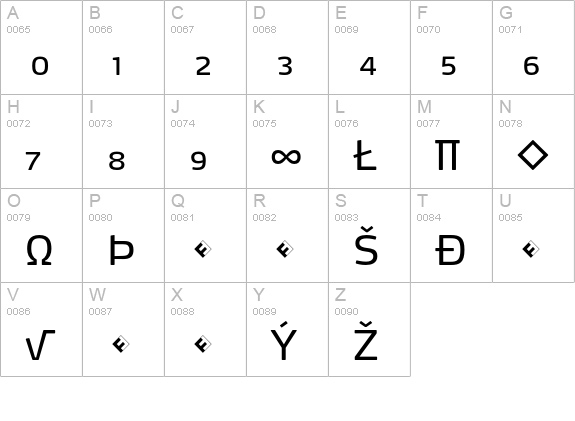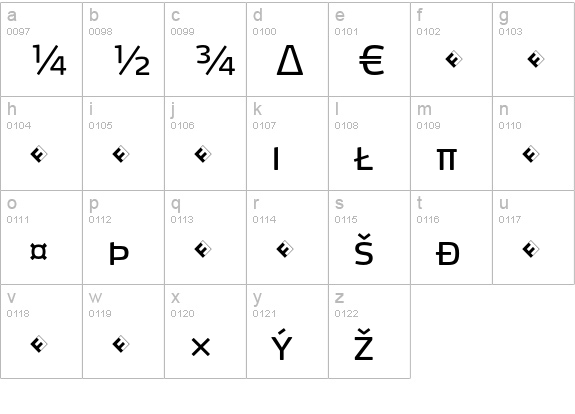
Max-RegularSCExpert Font Details
Introducing the stunning Max-RegularSCExpert font, a versatile typeface that exudes professionalism and modernity. This font boasts clean lines and sleek design elements, making it perfect for a wide range of projects, from branding to editorial design. With its balanced proportions and elegant appearance, Max-RegularSCExpert is sure to make your text stand out with sophistication and style. The best part? Max-RegularSCExpert is free to download at FontsMarket.com, making it easily accessible for designers and creatives looking to elevate their projects with a touch of class. Whether you're working on a logo, advertisement, or website design, this font is a fantastic choice to add a touch of elegance and refinement to your work. Download Max-RegularSCExpert today and unleash your creativity with this exquisite typeface.